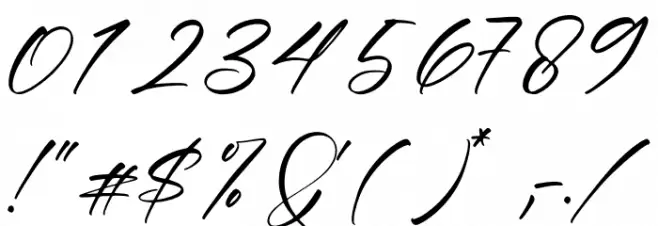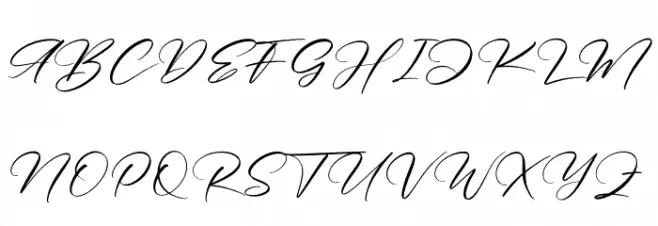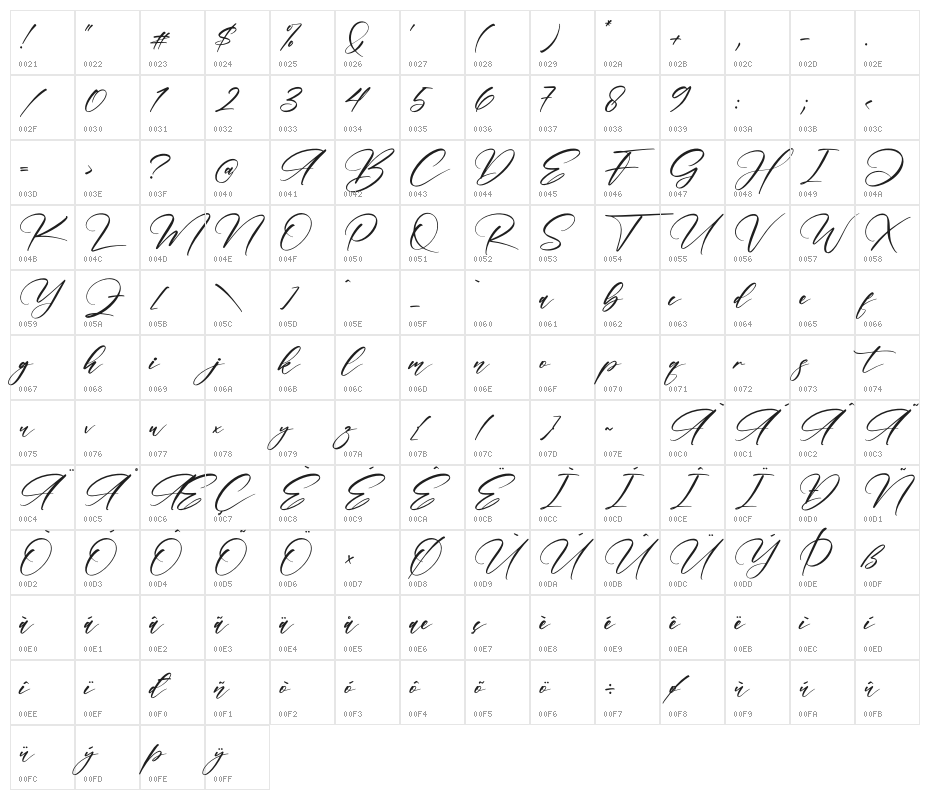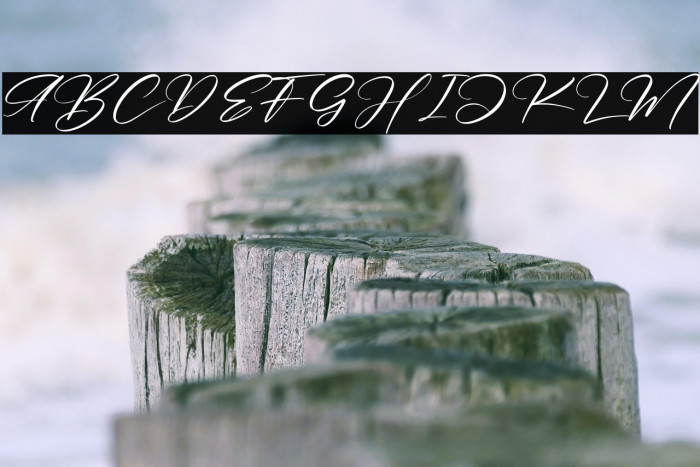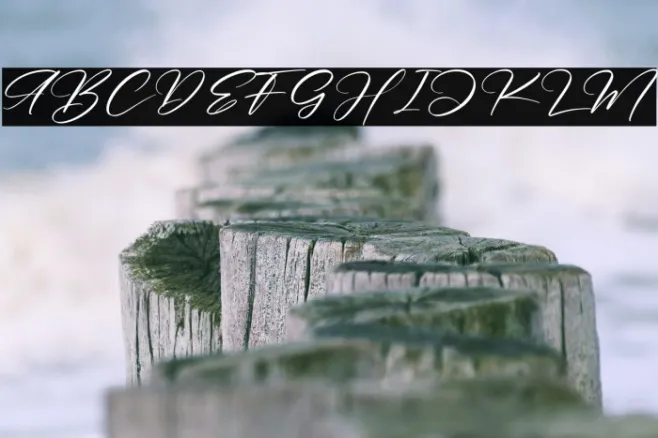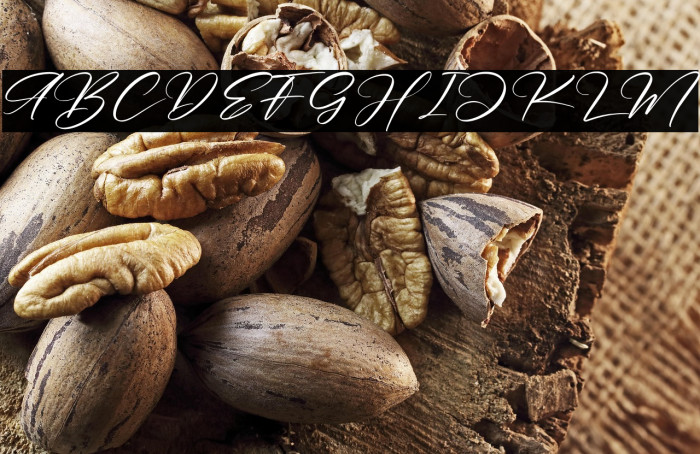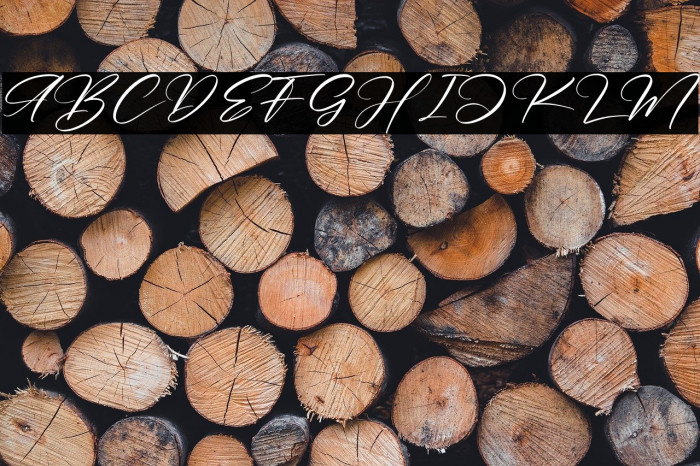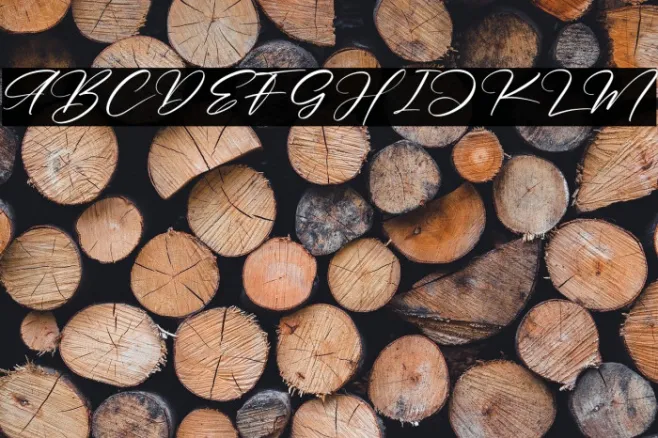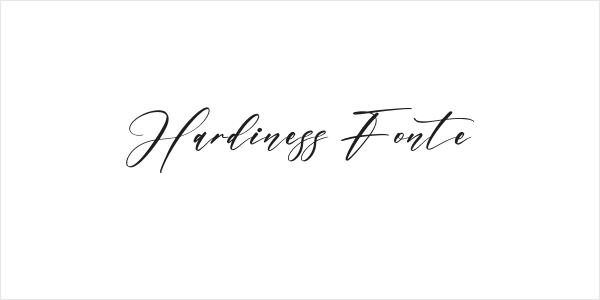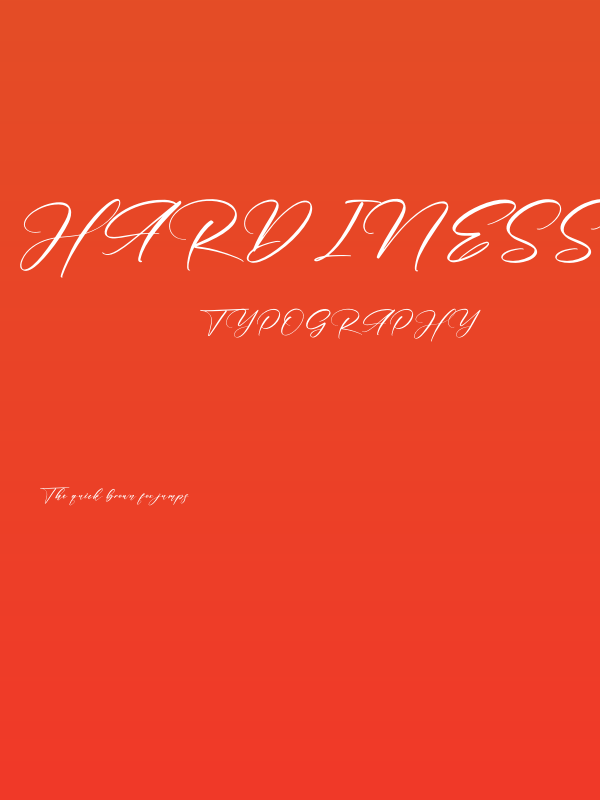
Hardiness Fonte Font
Hardiness Fonte Description
A flowing, elegant script font with a handwritten style, featuring smooth curves and a natural, organic feel.
| Overall Style | Decorative |
| Use Case | Logos, Invitations, Decorative text |
| Proposed Projects | Wedding invitations, greeting cards, branding. |